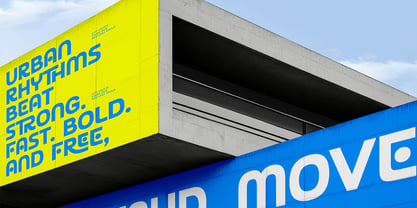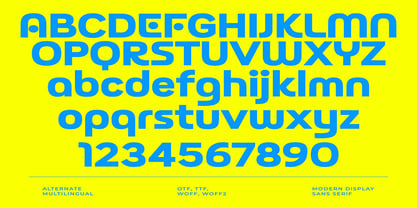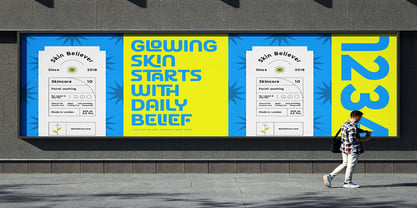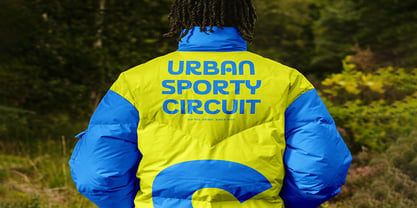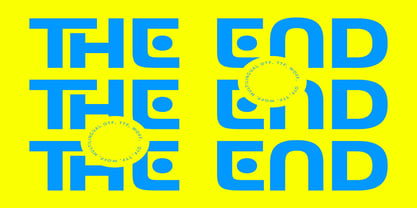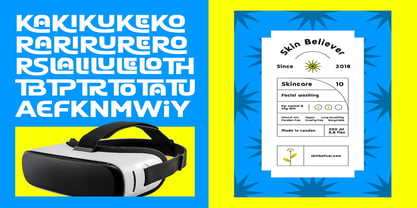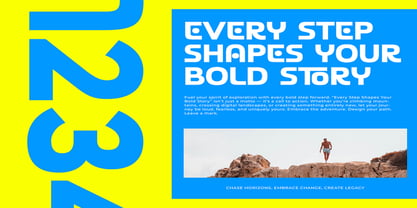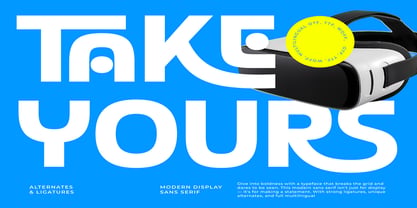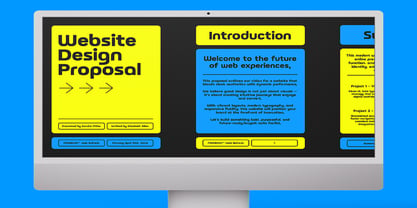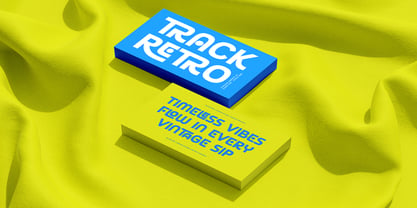
Take Yours
Take Yours: Break the Grid, Make a Statement
Looking for a typeface that refuses to blend into the background? Meet Take Yours, a hyper-modern display sans serif designed for brands, creators, and visionaries who dare to be seen.
With its thick, uncompromising weight and structural precision, Take Yours injects a distinct, high-energy aesthetic into any layout. It flawlessly balances a sleek, tech-forward feel with an organic, urban rhythm.
Why Take Yours Demands Attention
• Distinctive Alternates & Bold Ligatures: Take Yours breaks conventional design rules. It features unique geometric alternates, embedded dot details, and sweeping under-slung ligatures (like its signature TA connection) that transform standard text into custom logotypes instantly.
• Built for Scale: This font is an absolute powerhouse for high-impact applications. Whether it’s anchoring an oversized billboard, commanding a website hero section, or defining premium apparel lines, it remains razor-sharp and undeniably bold.
• The Ultimate Digital-Physical Hybrid: Equally at home on a futuristic VR headset interface or a brutalist concrete storefront mockup, Take Yours bridges the gap between high-tech innovation and raw, street-ready style.
Perfect For:
• Brand Identity & Logos that need instant recognition.
• Streetwear & Lifestyle Merchandise looking for a sporty, fast, and free attitude.
• Tech & UI/UX Design Projects looking to step into the future of digital experiences.
• Editorial Headlines & Dynamic Posters that need to radiate confidence.
"Every step shapes your bold story." Don't just design your next project—own it. Claim your look and make your move with Take Yours.